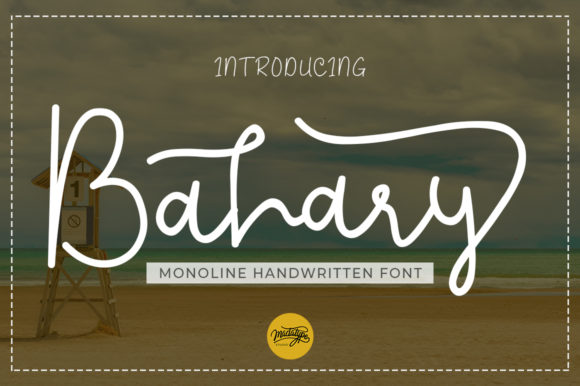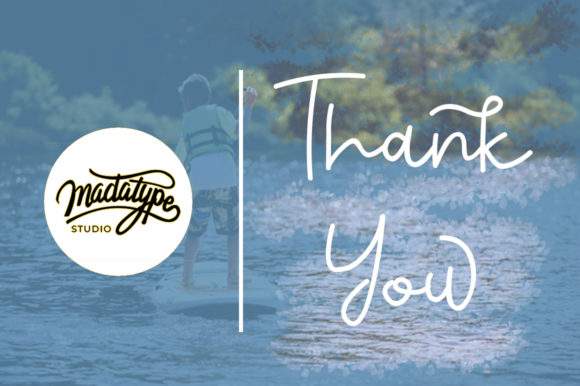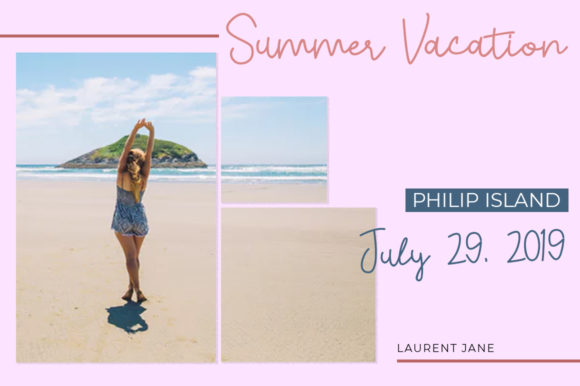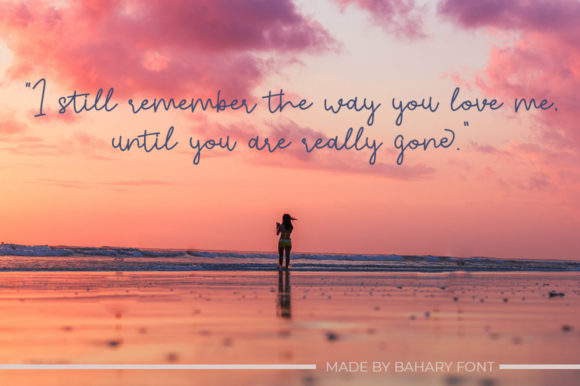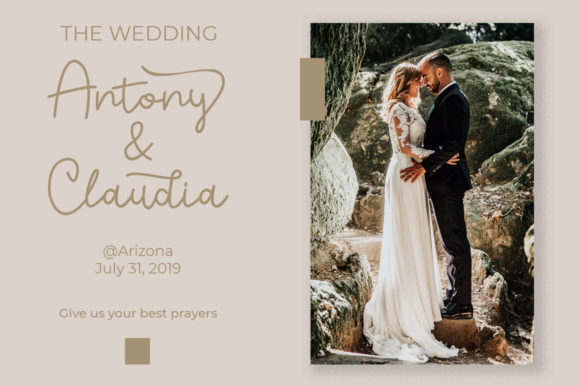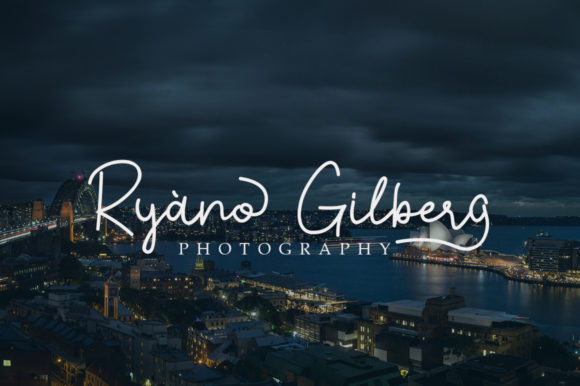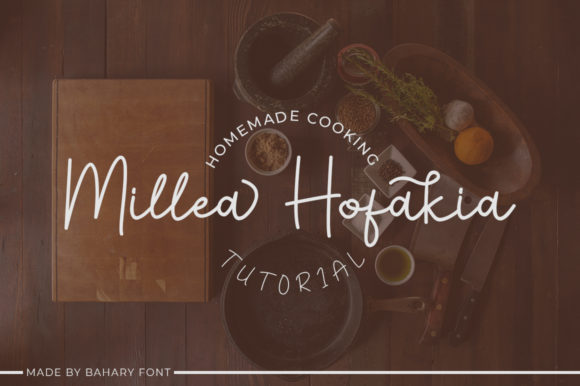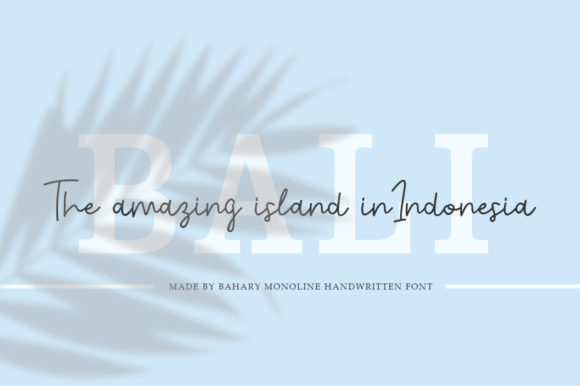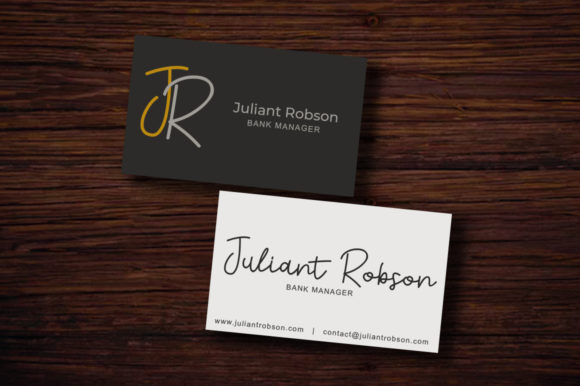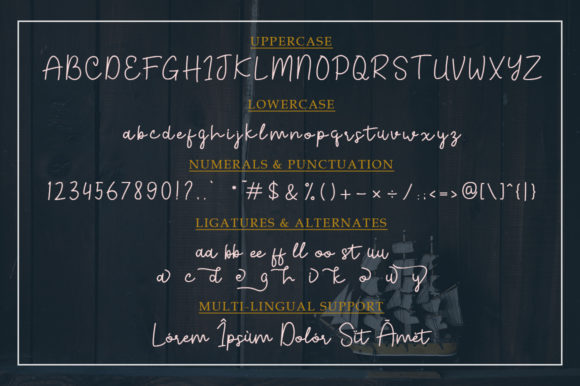
Bahary Font
About Bahary Font
Bahary is a handwritten font with stylish alternates that will make each of your designs effectively luxurious and unique.